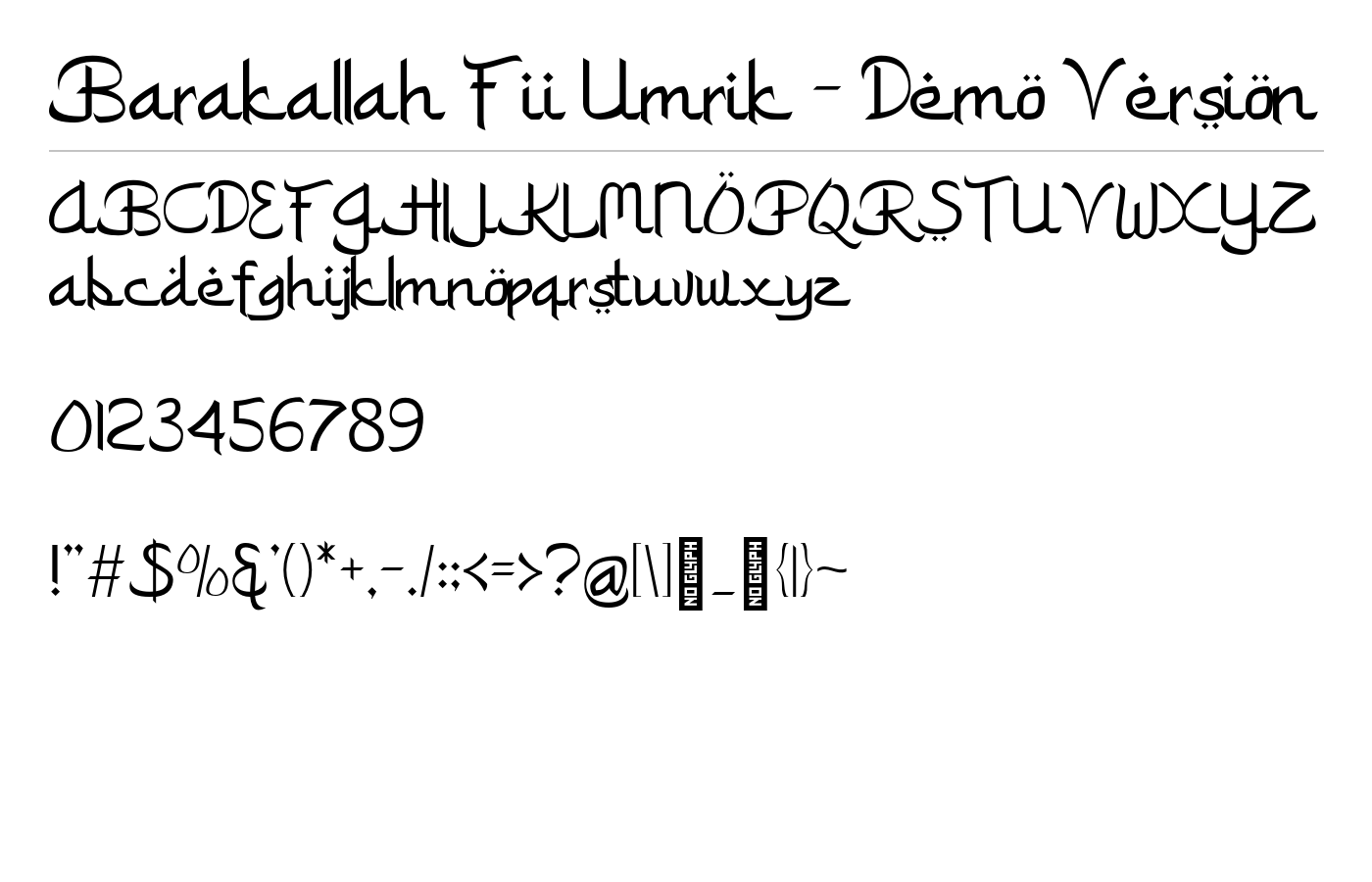
Barakallah Fii Umrik is a unique script-inspired sans serif font with a light weight and slightly condensed width, featuring smooth, flowing strokes that convey an artistic and handcrafted feel. Its elegant, playful curves and distinct letterforms make it ideal for creative branding, invitations, and headlines where a personal yet refined touch is desired. This font works best in designs that seek to blend traditional charm with modern simplicity, adding warmth and character to any project.
Barakallah Fii Umrik - Demo Version Font
About Barakallah Fii Umrik - Demo Version Font